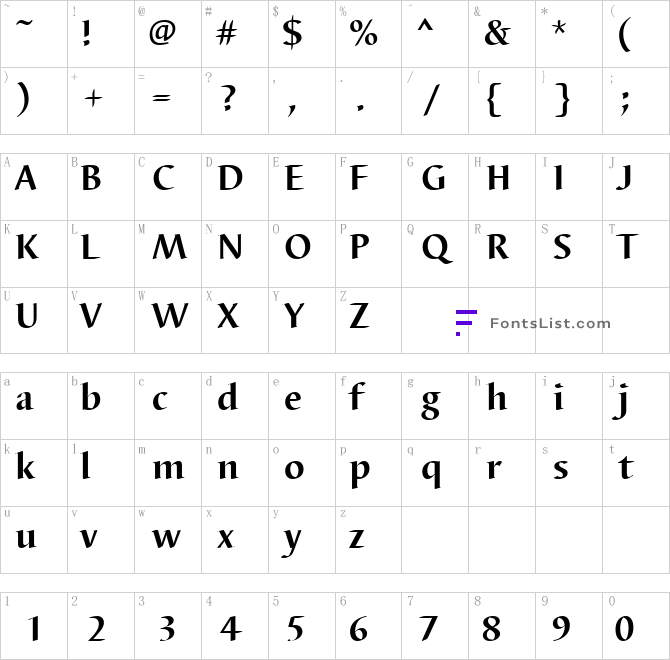
- Font Name:BarbedorT
- Subfamily:URW:BarbedorT-Bold:1995
- Full Name:BarbedorT Bold
- PostScript:BarbedorT-Bold
BarbedorT-Bold.ttf is a very beautiful artistic font, BarbedorT-Bold.ttf is widely used in the design and printing of various books and pictures,BarbedorT-Bold.ttf has a strong visual impact,BarbedorT-Bold.ttf is a commonly used font in newspapers, magazines and books, and is used in posters, e-commerce Poster design, store design, logo design, font design and other fields.BarbedorT-Bold.